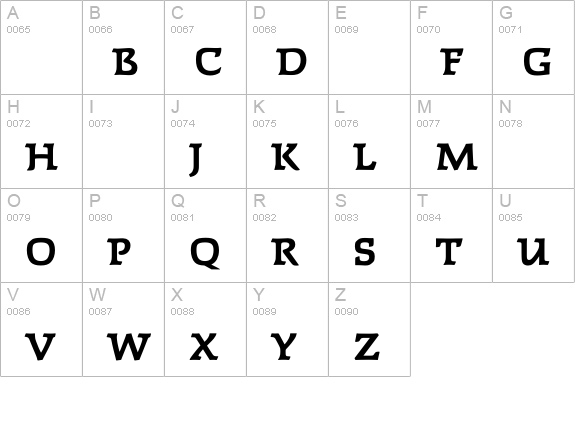
FaustBoldOldStyleFigs Font Details
FaustBoldOldStyleFigs font is a timeless and elegant typeface that exudes sophistication and charm. With its bold and distinctive design, this font is perfect for adding a touch of class to any project. The unique old-style figures give it a classic and vintage feel, making it stand out from other fonts. What makes FaustBoldOldStyleFigs font even more appealing is that it is free to download at FontsMarket.com. This means you can easily access this beautiful font and use it in your designs without any cost. Whether you're working on a print project, website design, or any other creative endeavor, FaustBoldOldStyleFigs font is sure to elevate your work and make a lasting impression. Download it today and add a touch of elegance to your projects!